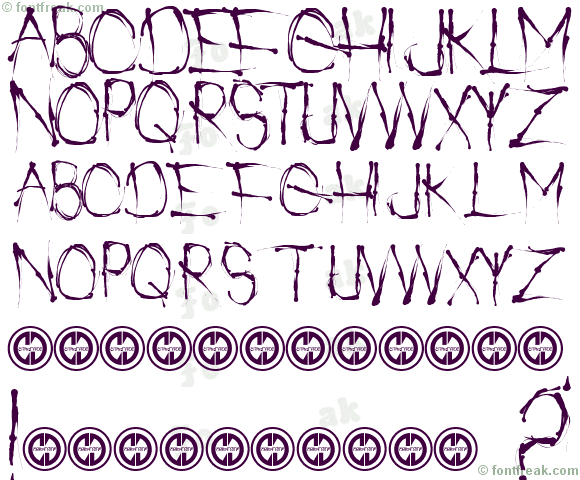
Watch People Die
The "Watch People Die" font by Chris Vile is a distinctive display typeface that captures attention with its unique visual style. It features a hand-drawn appearance, characterized by irregular strokes and a slightly distressed texture that evokes an edgy, avant-garde aesthetic. The font's stroke weight varies, creating an engaging contrast that adds depth and character to its letters. The spacing is somewhat loose, allowing for a relaxed reading experience while maintaining a bold presence.
This font shines in various creative applications. It's ideal for movie posters, particularly those in the horror or thriller genres, where its dramatic flair can enhance the overall theme. Additionally, it suits graphic novels or comic book covers, attracting viewers with its striking appearance. The "Watch People Die" font can also be effectively used in event flyers, especially for unconventional gatherings or art exhibitions, where a strong visual impact is essential. Small business owners in the entertainment industry might find it perfect for promotional materials that need to stand out in a crowded marketplace.
Target audiences include graphic designers looking to push creative boundaries, content creators seeking to add flair to their projects, and small business owners aiming to capture attention with unique branding elements.
What sets the "Watch People Die" font apart is its ability to blend artistic expression with functional design. It challenges conventional typographic norms, making it an exciting choice for those willing to take risks in their work. The availability of the "Watch People Die font free download" makes it accessible for anyone looking to enhance their design projects with a bold, artistic touch.